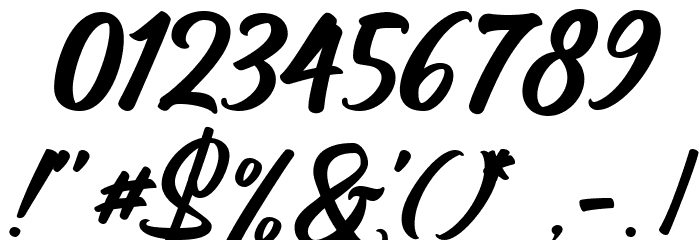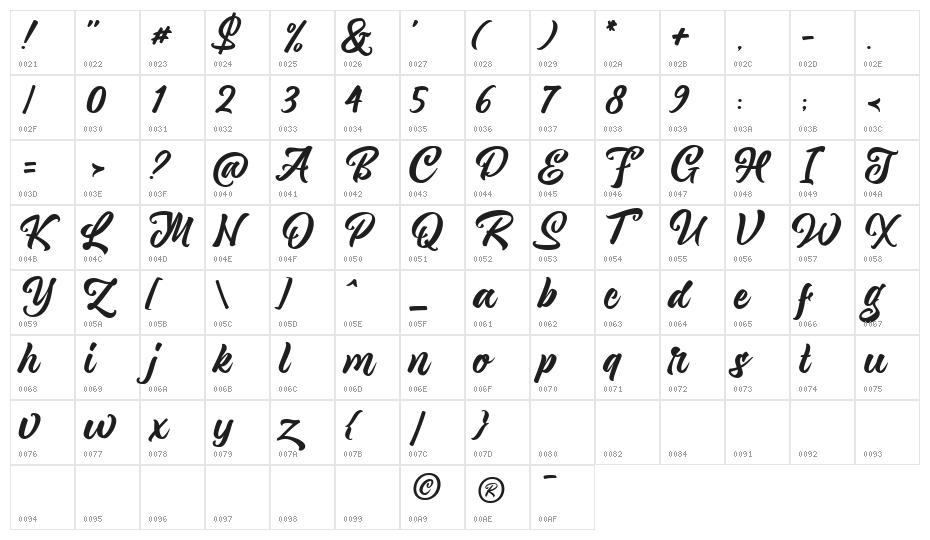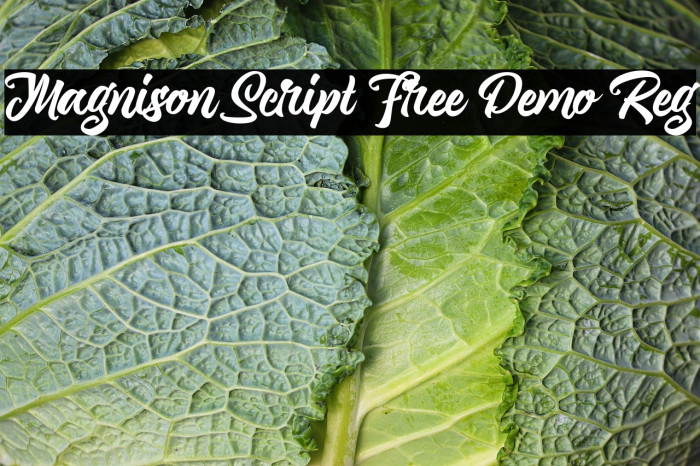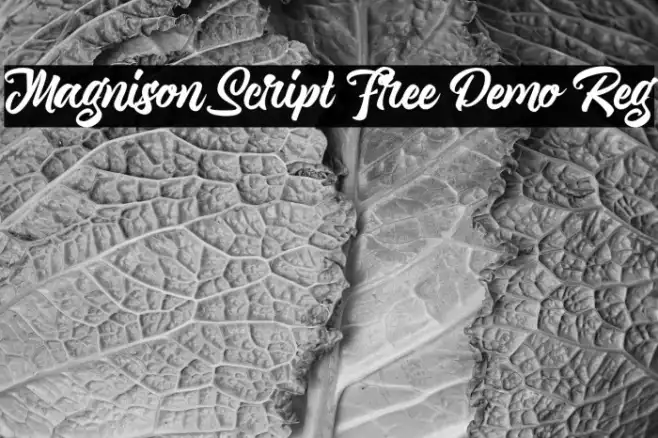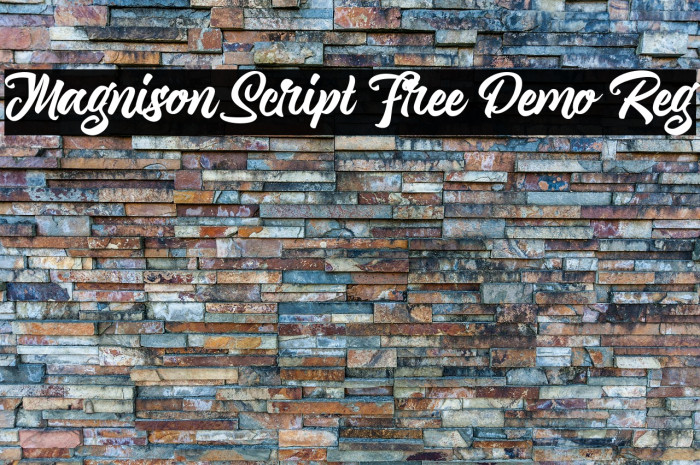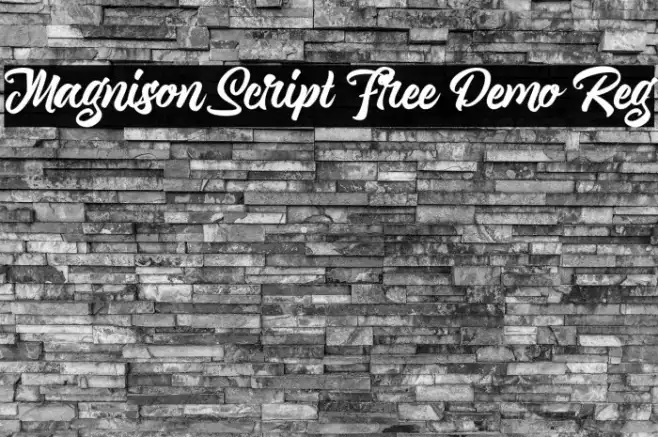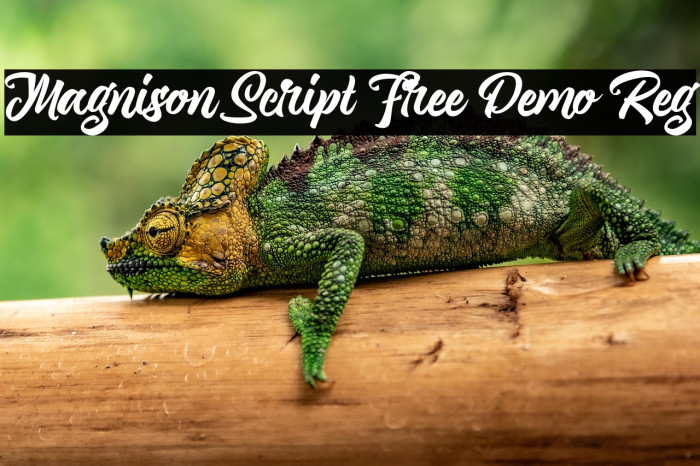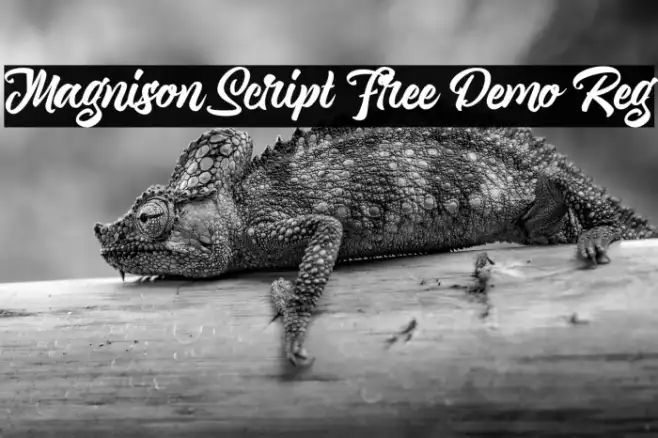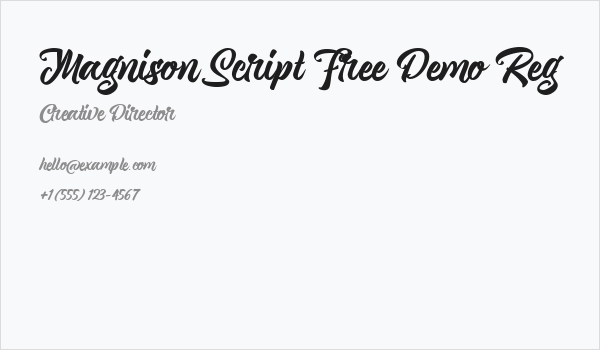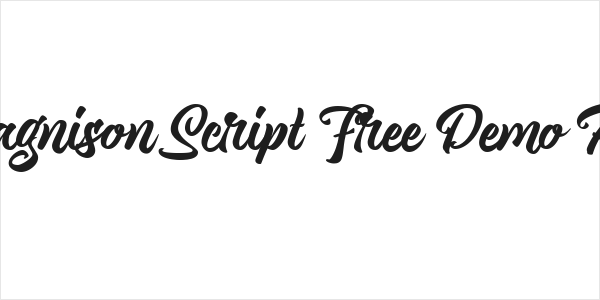
Magnison Script Free Demo Reg Font
Magnison Script Free Demo Reg Description
This font features an elegant and flowing script style, characterized by its smooth, cursive strokes and a sense of fluidity. The uppercase letters exhibit a graceful, sweeping motion with decorative flourishes, while the lowercase letters maintain a consistent, connected flow. The numerals are bold and slightly rounded, complementing the overall script aesthetic. Special characters are designed with the same attention to detail, ensuring a cohesive look across all glyphs. This font exudes a sense of sophistication and charm, making it ideal for projects that require a touch of elegance.